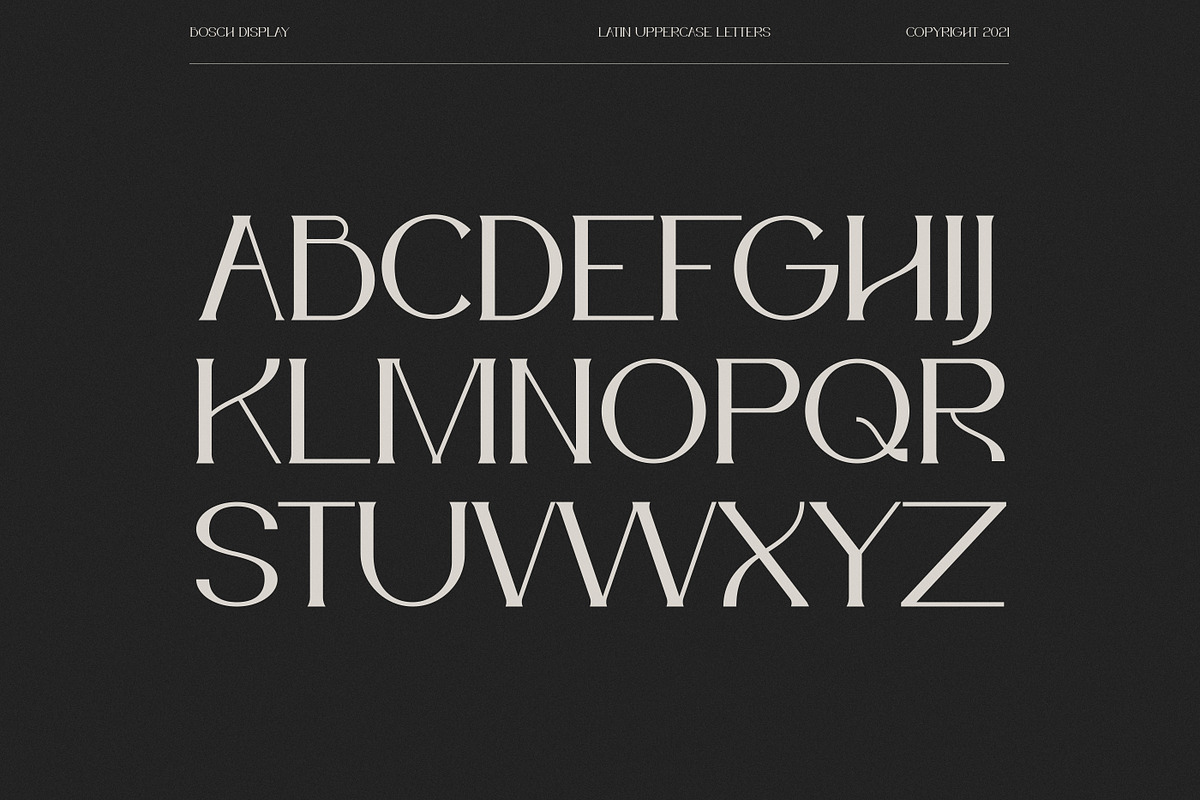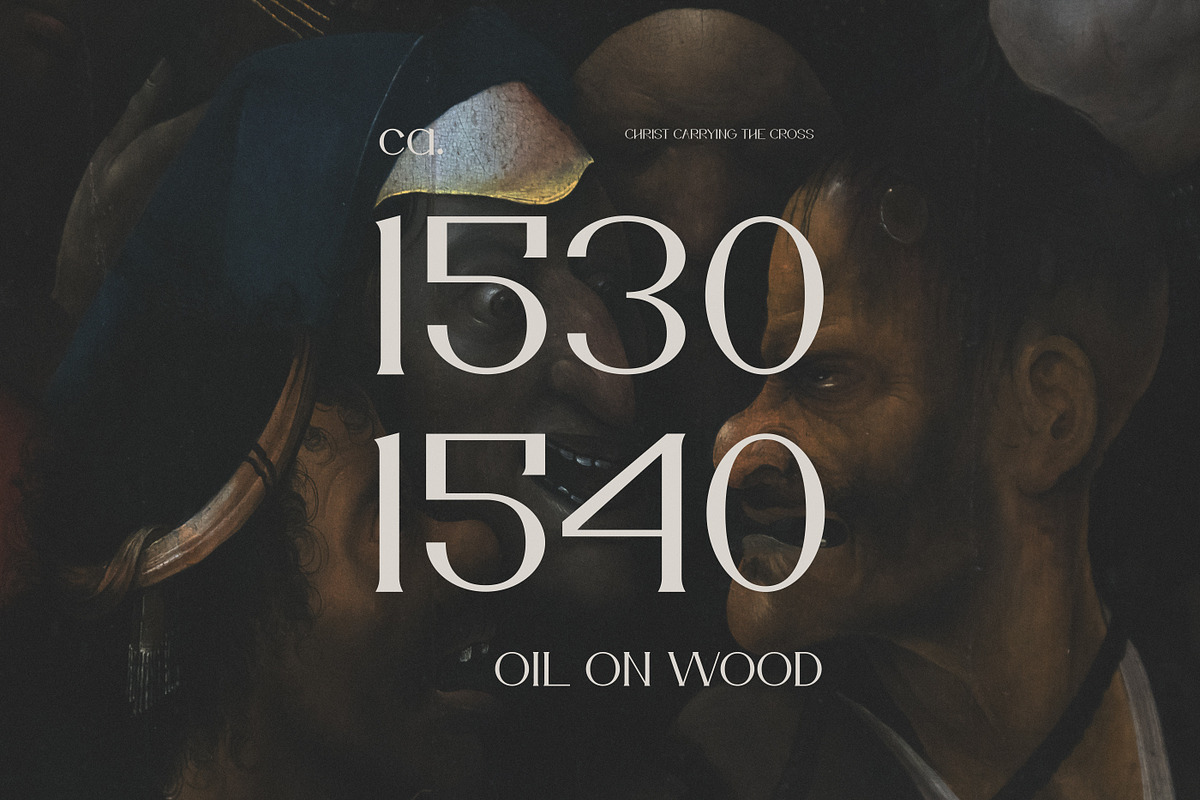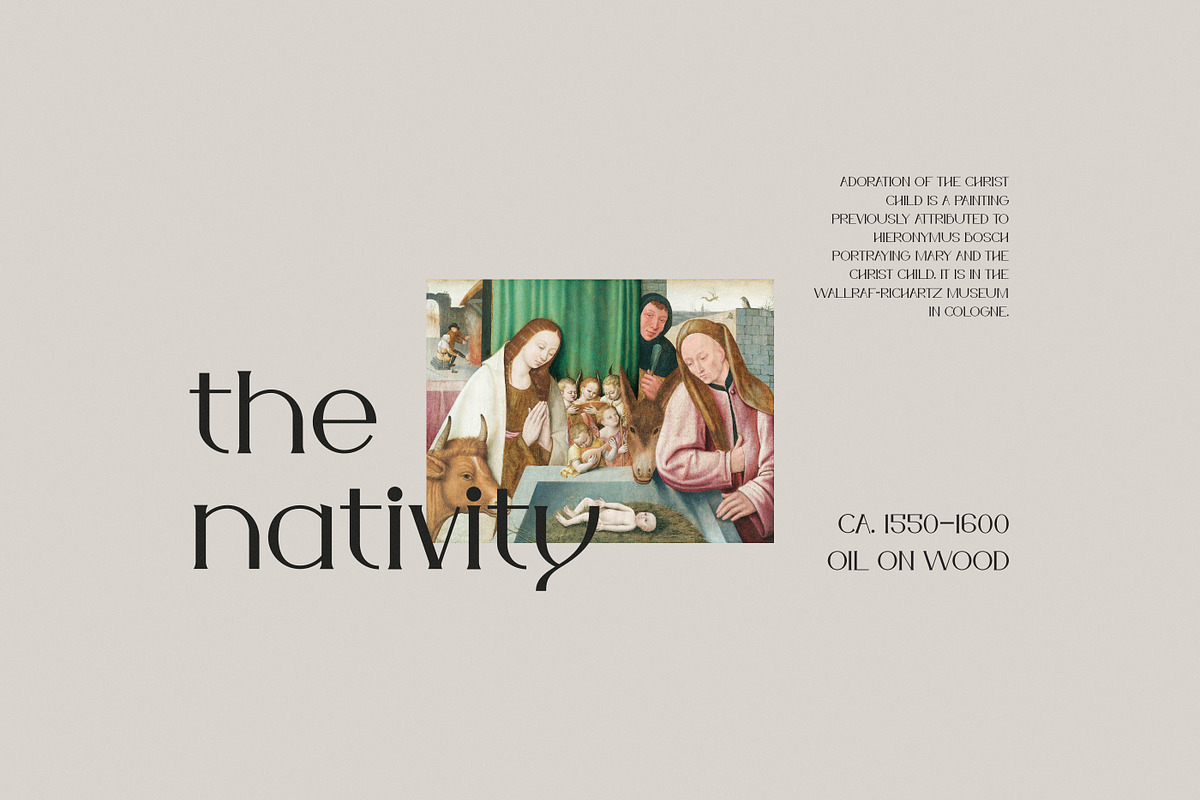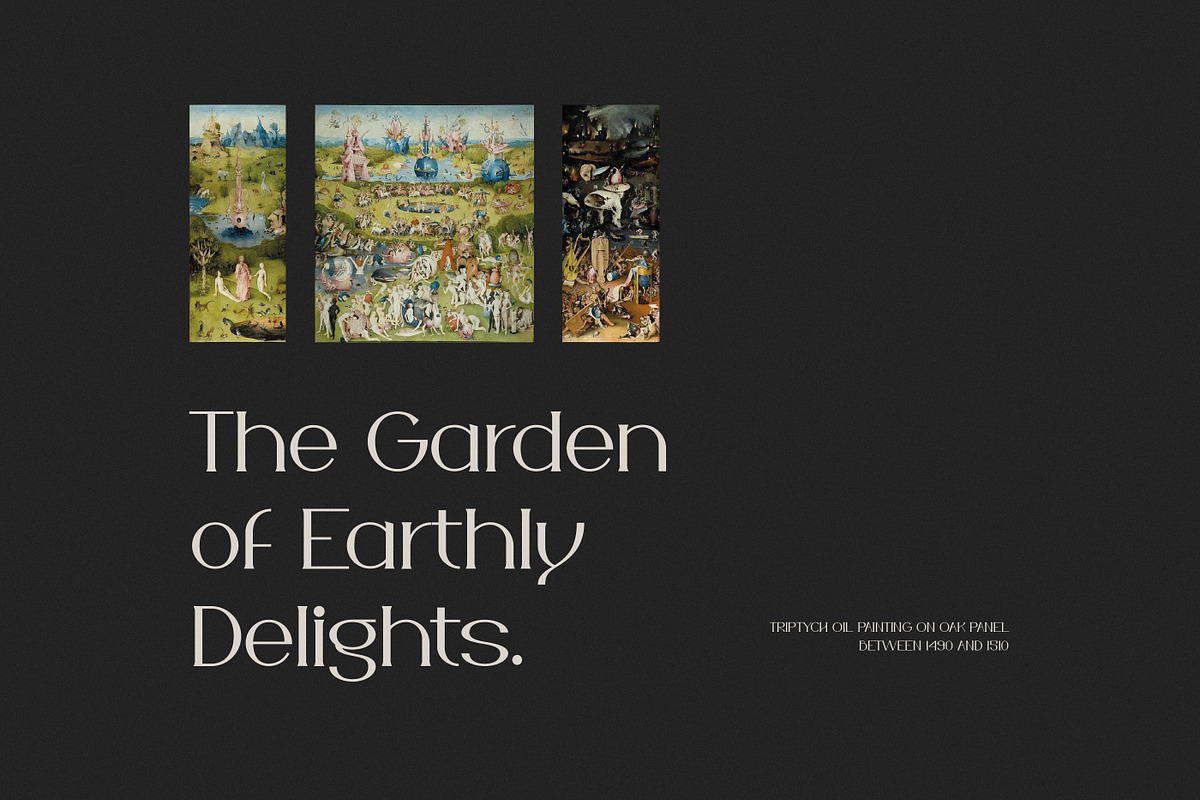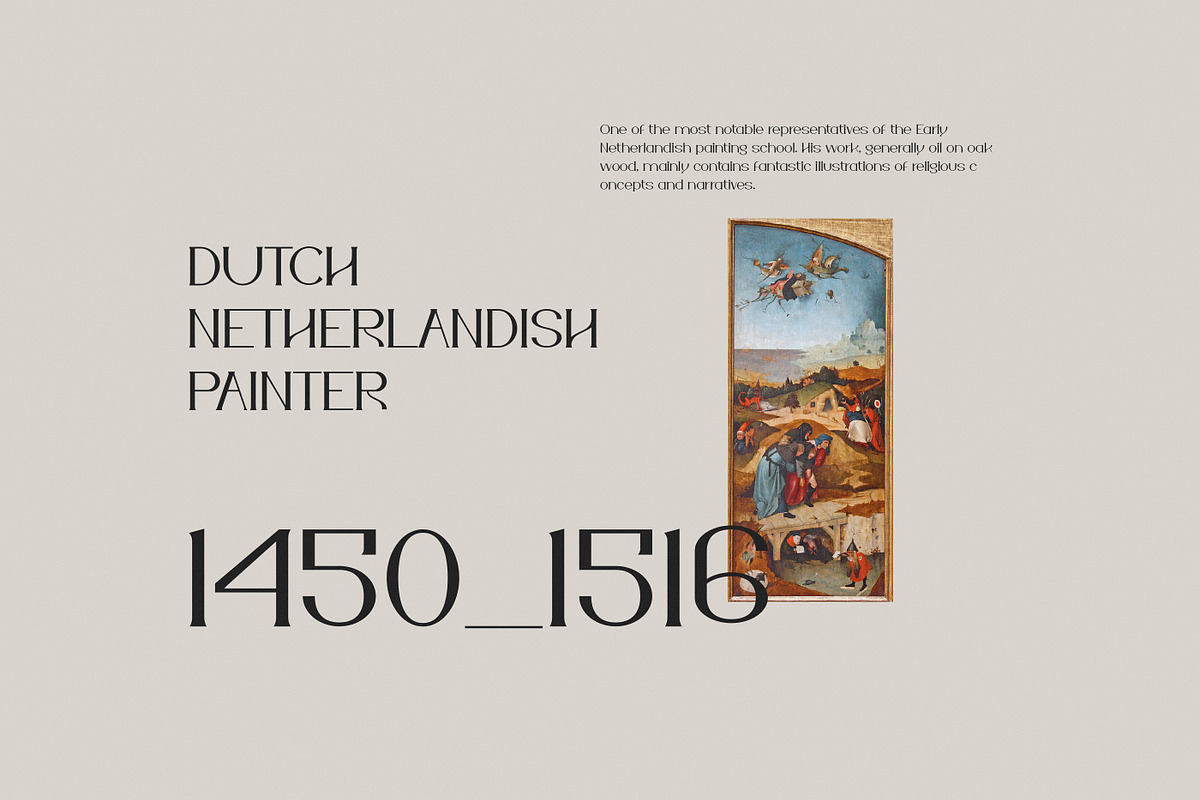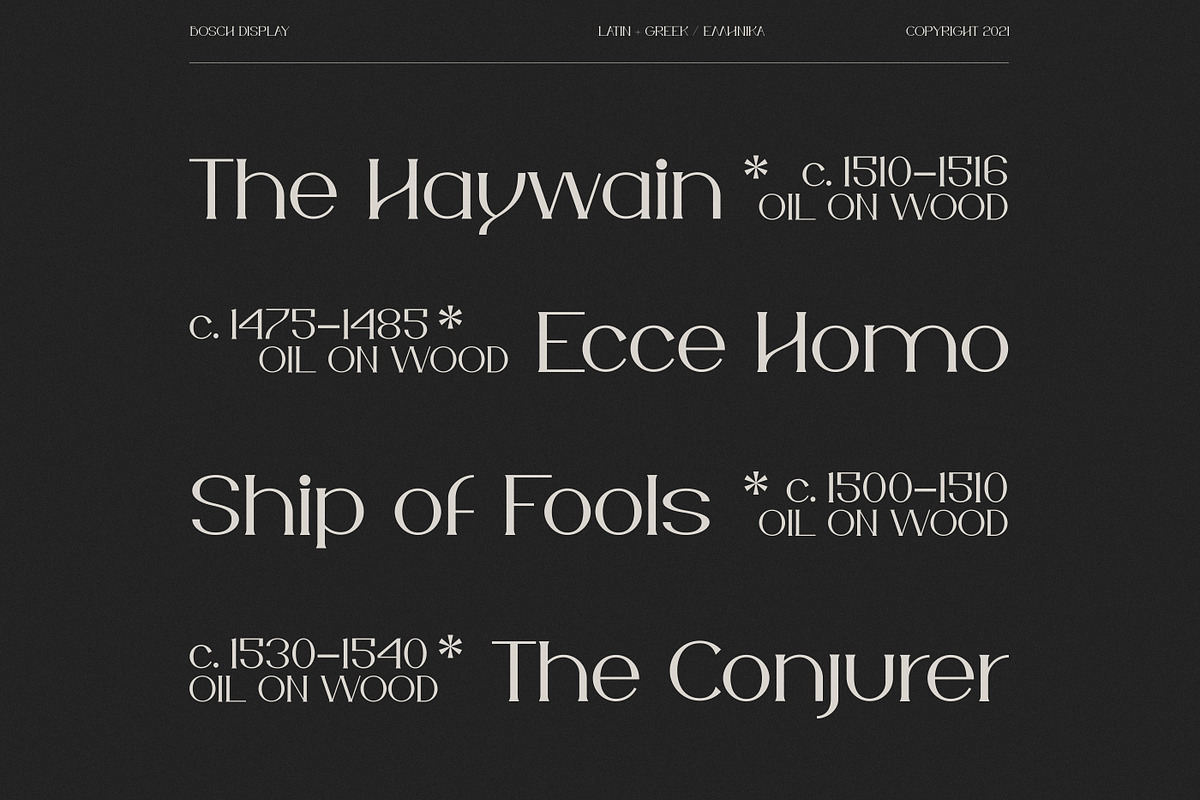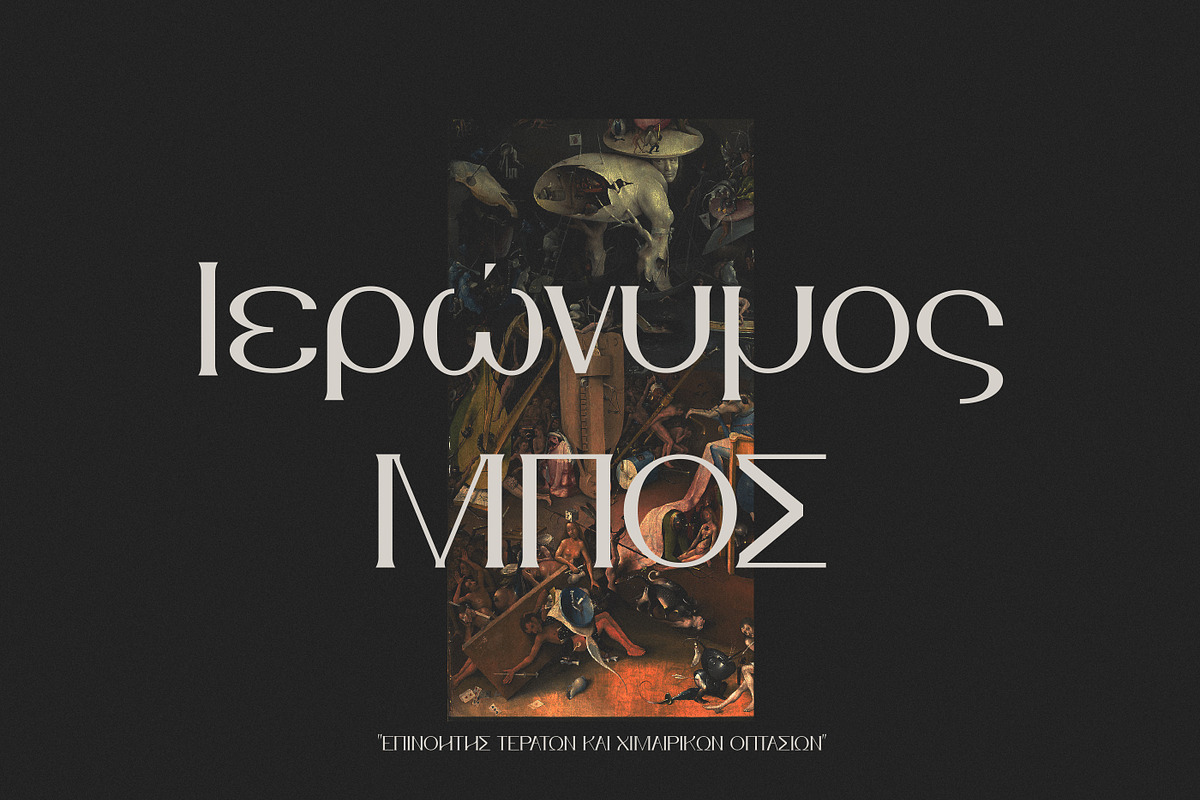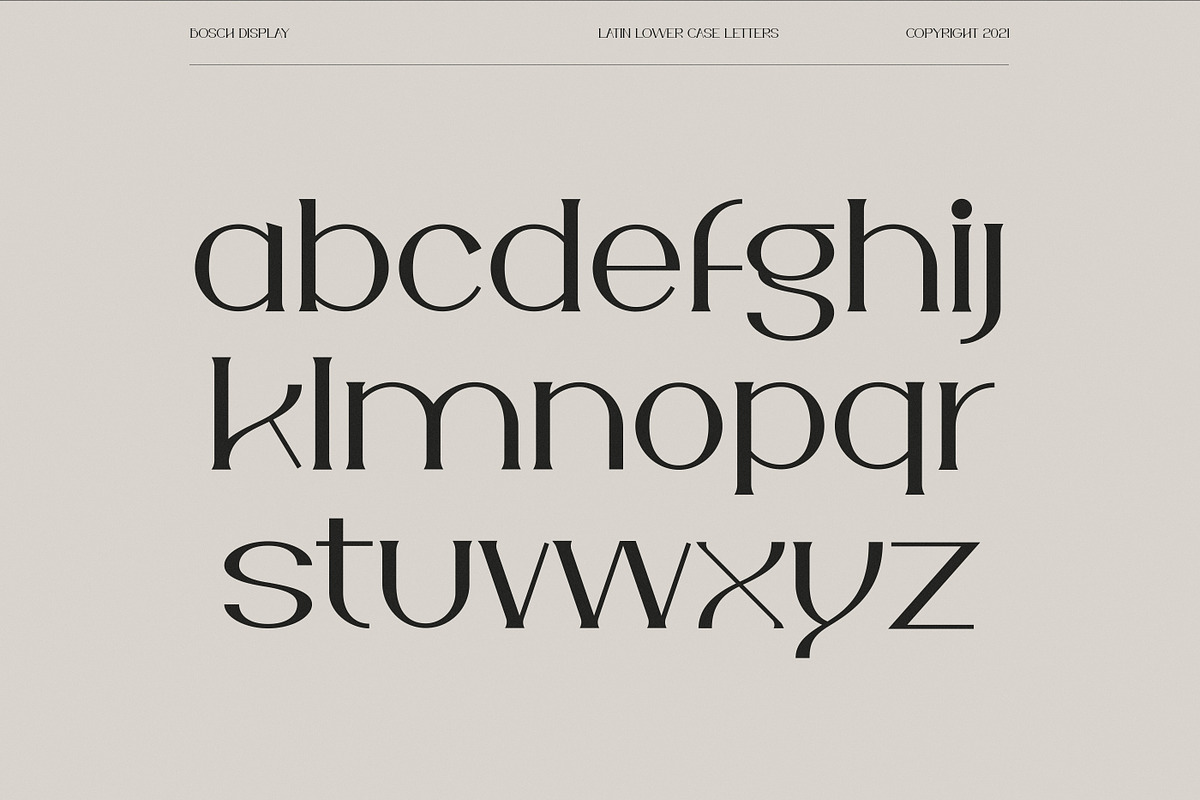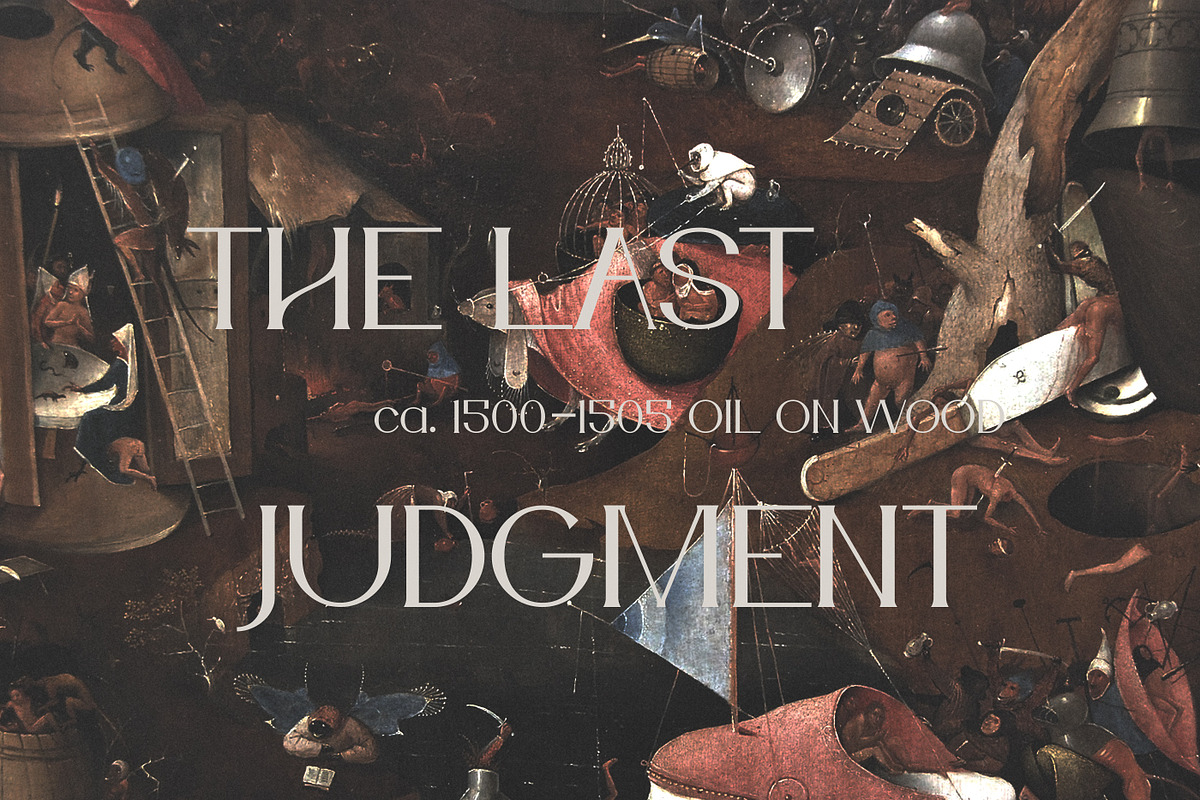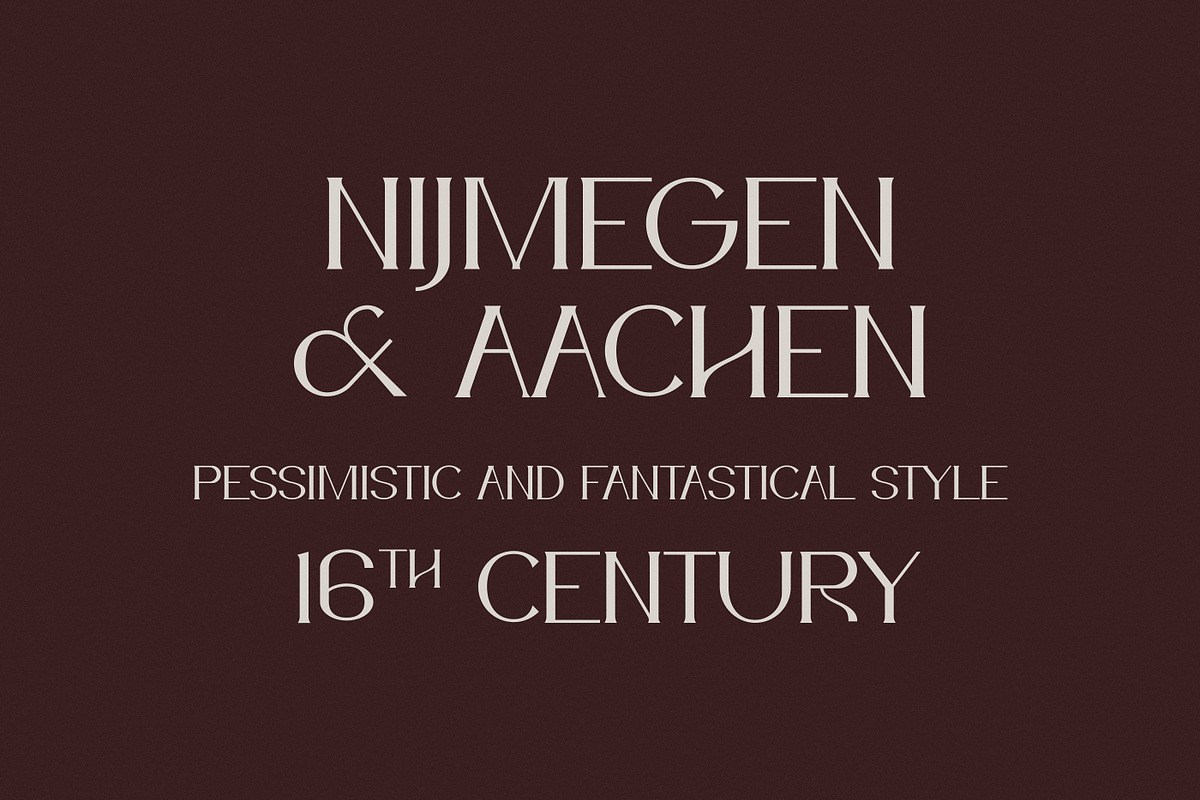
Bosch Display Font
Bosch display is a serif font, its soft curves and refined details create a sense of elegance.
Inspired by Hieronymus Bosch (1450 – 1516) who was a Dutch/Netherlandish painter from Brabant. Considered one of the greatest artists of the Northern Renaissance, Bosch is known for creating restlessly imaginative works rich in religious symbolism, allegory, and fantastical elements depicted in bustling scenes across expansive compositions.
1 weight
Upper / lower case, numbers, punctuation
Language support: English, American and Greek